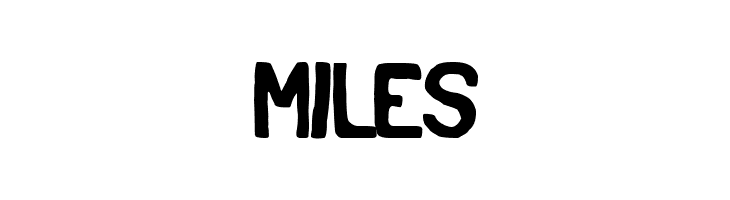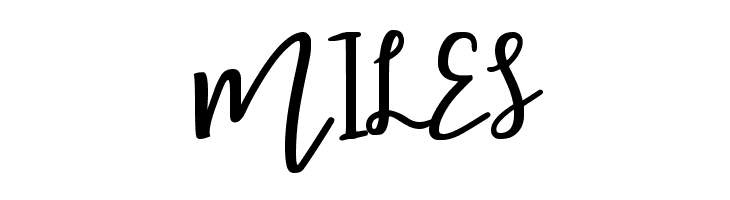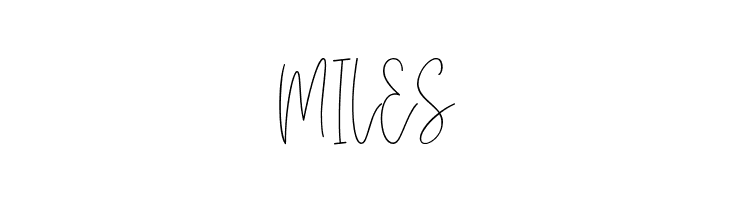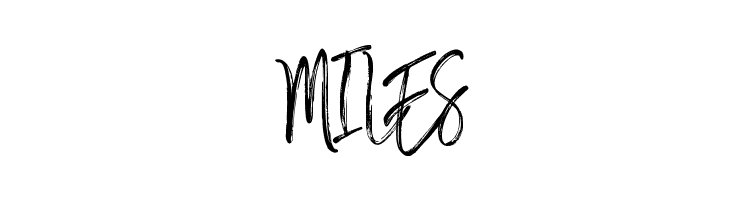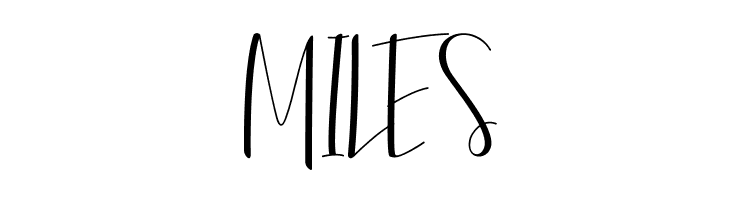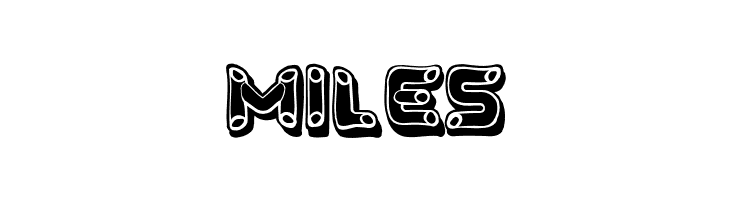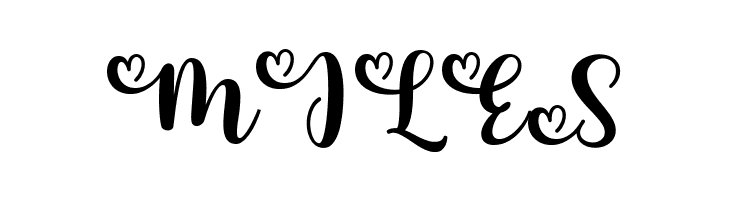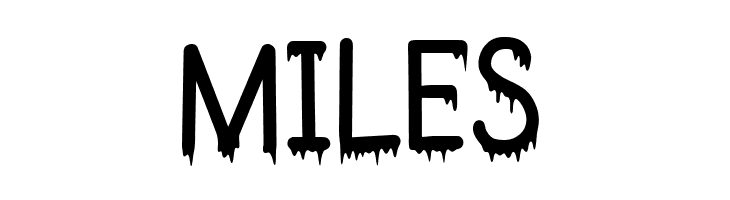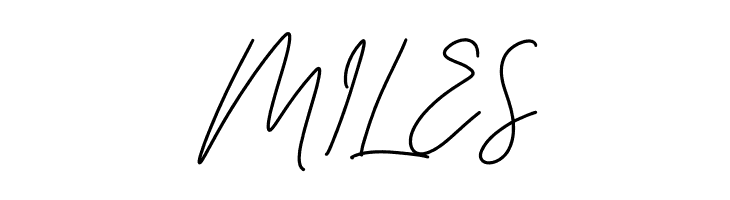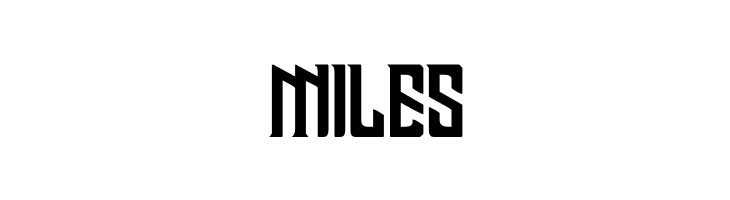
• Bassist
A modern, angular font with geometric shapes and sharp lines.
• Basskia
A sophisticated and elegant handwritten cursive font.
• Basskia
An elegant, flowing script font with graceful curves and a sophisticated style.
• Basstian
A modern, handwritten font with a fluid and elegant style.
• Basstian Italic
An elegant and flowing script font with a refined, handwritten style.
• Basston Script
A lively and elegant script font with flowing, cursive letterforms.
• BasstonScript
A lively and elegant script font with flowing, cursive letterforms.
• Bassy
A dynamic, cursive font with expressive, flowing letterforms and artistic flair.
• BastamanBold
A bold, modern sans-serif font with strong geometric lines.
• BastardaMajuskel1300
A Gothic-style font with sharp, angular lines and ornate detailing.
• Basterds
A bold, brush-style font with a gritty, expressive texture.
• Basterds
A bold, geometric display typeface with strong, angular shapes.
• BasterMonky
A playful handwritten font with tall, narrow letters and fluid strokes.
• BasterMonky
A playful, handwritten font with tall, narrow letters and fluid strokes.
• BASTERU
A bold, angular font with a modern, futuristic aesthetic.
• bastian
A dynamic and flowing script font with elegant cursive letterforms.
• Bastian
A graceful, cursive script font with elegant, flowing strokes.
• Bastian Sidney
A dynamic, expressive handwritten font with fluid strokes and artistic flair.
• BASTILLE
A playful, rounded font with smooth curves and consistent stroke width.
• Bastille Free Font
An elegant, flowing script font with delicate, continuous strokes.
• BastiollaRegular